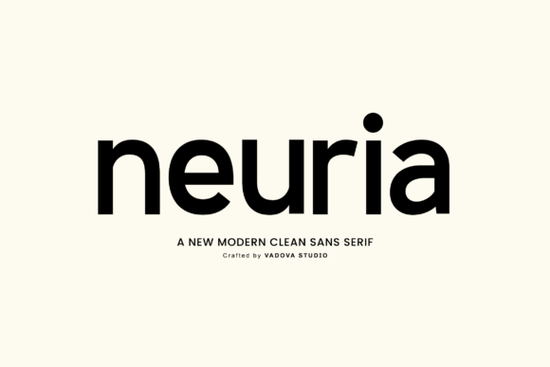
Neuria Font is a sleek, modern sans serif typeface that brings clarity and precision to any project. Designed with clean lines and balanced proportions, it’s ideal for anyone looking for a neutral yet impactful font for branding, digital layouts, or print work. Whether you're building a logo, designing social media content, or creating editorial pieces, Neuria delivers a polished look without overpowering your message.
What makes Neuria Font stand out?
Unlike many fonts that lean too hard into minimalism or geometric rigidity, Neuria strikes a balance between sharpness and softness. Its smooth curves and carefully calibrated spacing give it a refined feel professional enough for corporate identity systems, but flexible enough for creative projects in fashion, tech startups, or lifestyle brands.
The font supports uppercase and lowercase letters, numerals, and full punctuation, making it reliable across languages and use cases. It's built to work seamlessly in both digital and print formats, so whether you're crafting a website UI, a product label, or a presentation deck, Neuria holds up under scrutiny.
Where can you use Neuria Font effectively?
- Branding & Logos: Clean, bold letterforms make it perfect for company names and brand marks.
- Website Design: Great for headings and navigation menus where readability matters.
- Social Media Graphics: Stands out on Instagram posts, Pinterest pins, and Facebook banners.
- Editorial Layouts: Works well in magazines, newsletters, or zines when paired with simple design elements.
- Print-on-Demand Products: Ideal for T-shirts, mugs, and tote bags where legibility and style go hand-in-hand.
How does Neuria compare to other fonts?
While many modern sans serifs focus on extreme minimalism, Neuria maintains a human touch. The slight curve in the strokes keeps it from feeling cold or mechanical. It’s not as rigid as some geometric fonts, nor as playful as others. This middle ground is what makes it so widely usable across industries from tech startups to high-end fashion labels.
You’ll find that its neutral tone works well with vibrant colors or muted palettes alike. It doesn’t demand attention, but it earns respect through consistency and clarity. That’s why it’s often chosen by designers who value subtlety over flash.
Why designers choose Neuria
It’s not just about looks it’s about workflow. Neuria loads quickly in design software, renders crisply at small sizes, and integrates smoothly into existing design systems. If you’ve ever struggled with fonts that break on mobile screens or blur in PDFs, Neuria avoids those issues thanks to its thoughtful construction.
For crafters and print-on-demand sellers, this means fewer reworks and more consistent results. You can confidently use Neuria in mockups, templates, or product graphics knowing it will appear sharp no matter where it’s used.
Final thoughts: Is Neuria right for your next project?
If you need a dependable, versatile font that looks professional in almost any context, Neuria is a strong choice. It’s not flashy, but it’s effective. It won’t distract from your message it will help deliver it clearly.
Whether you’re a small business owner, a freelance designer, or a hobbyist working on personal projects, Neuria adds polish without complexity. It’s one of those fonts that just… works.